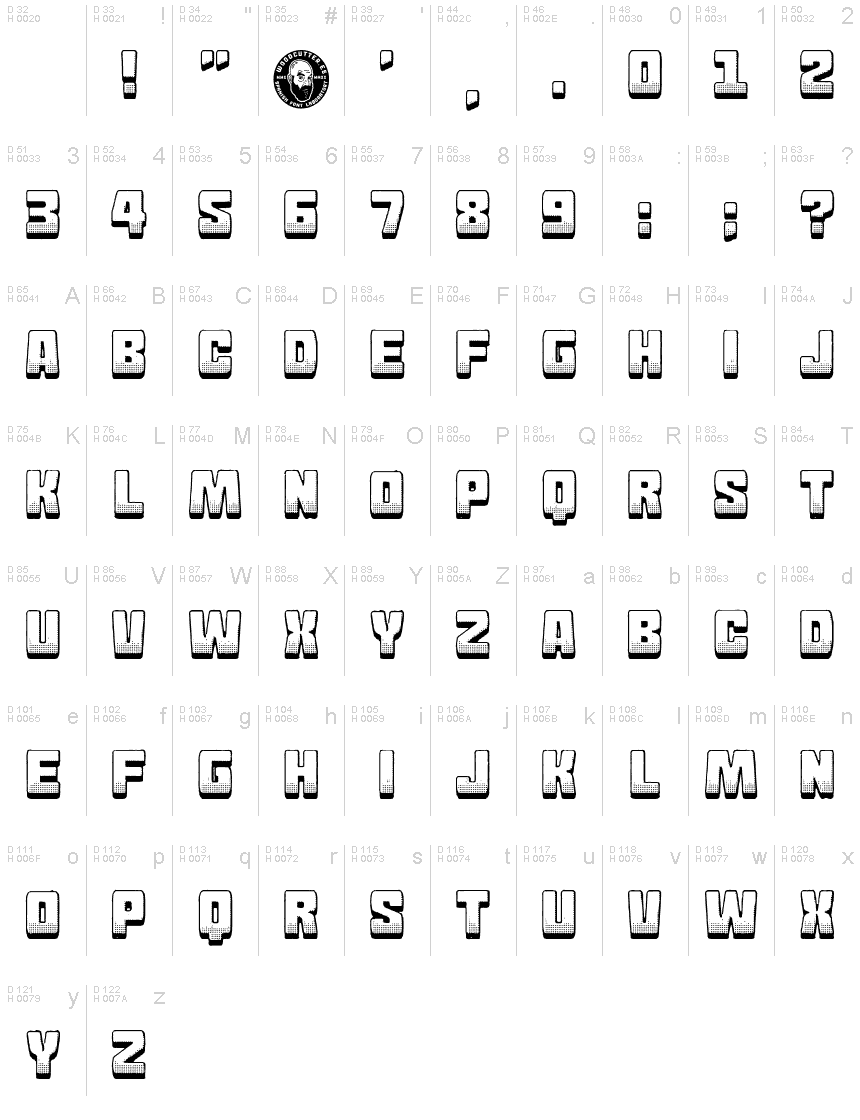
Franco Bros.
Franco Bros. by Woodcutter Manero is a captivating display font that adds a dynamic touch to any project. Its bold and semi-condensed style injects depth and dimension, making it perfect for eye-catching logos, gaming titles, and posters. The 3D effect of Franco Bros. font truly brings your designs to life, elevating them with its contemporary flair. Whether you're designing for sports events, tech startups, or music festivals, this font will ensure your message stands out from the crowd with its unique blend of strength and style.